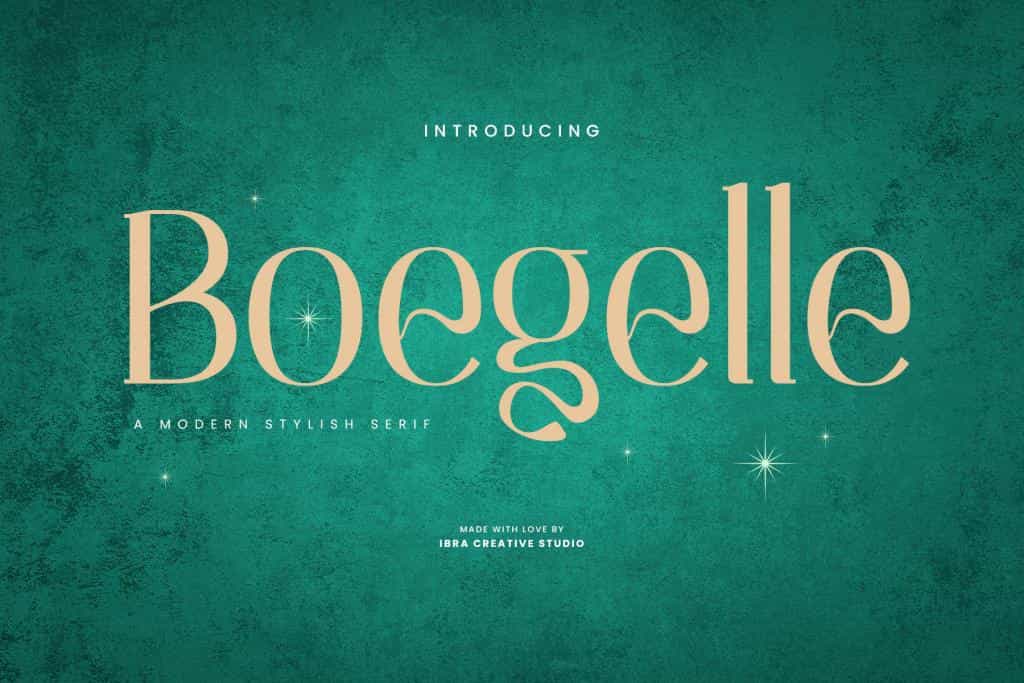
Boegelle is a contemporary and elegant serif typeface that exudes sophistication through its chic design and distinct style. Boegelle successfully marries traditional serif elements with contemporary aesthetics for an elegant typeface with great flexibility; its letterforms combine sleek serifs and rounded curves to produce an aesthetic harmony that is both modern and timeless.